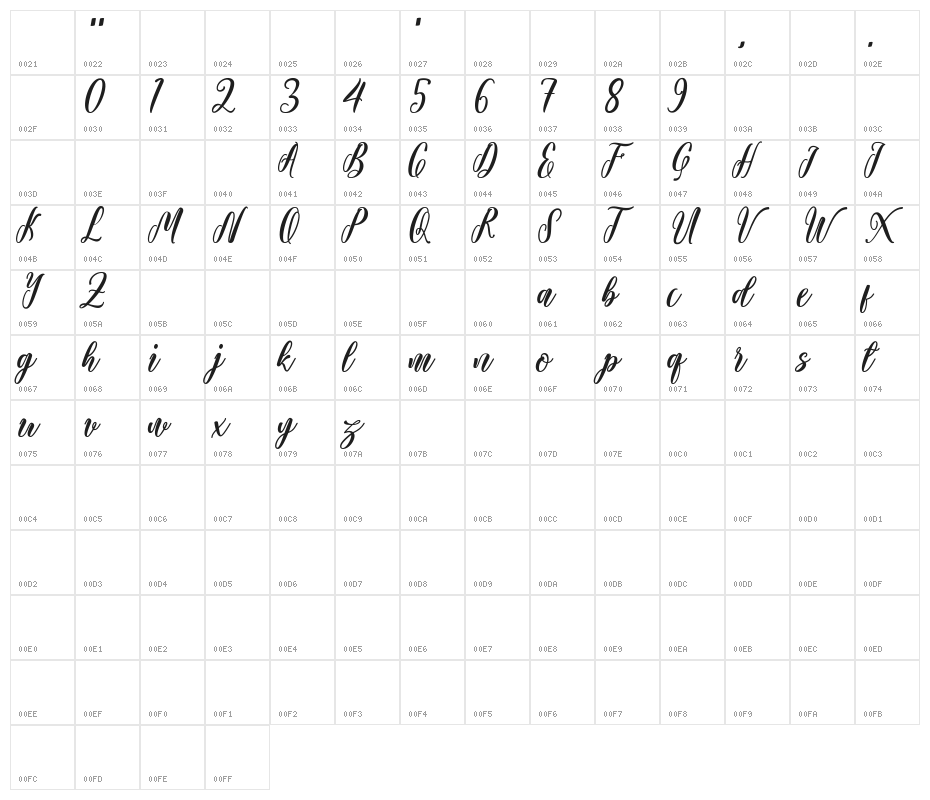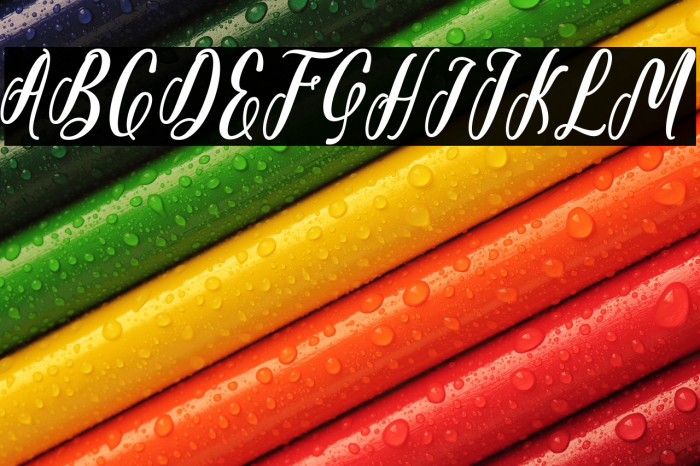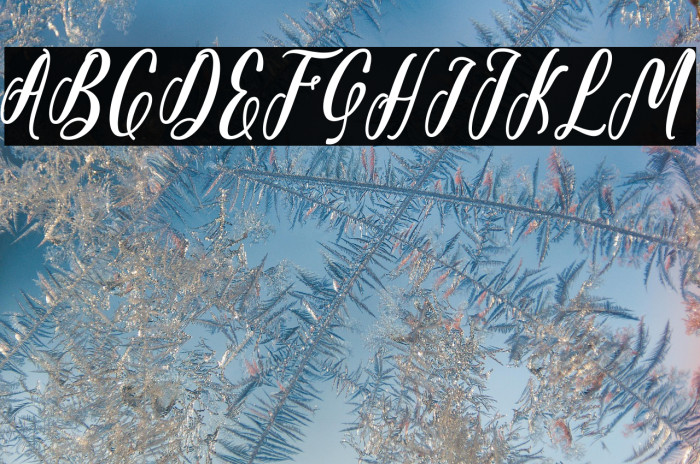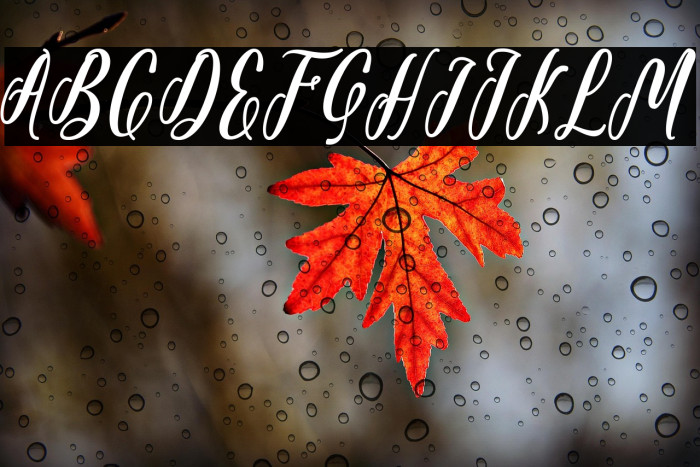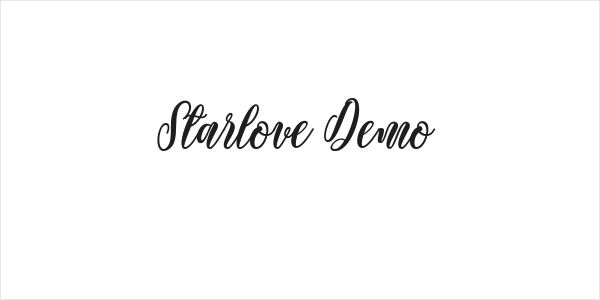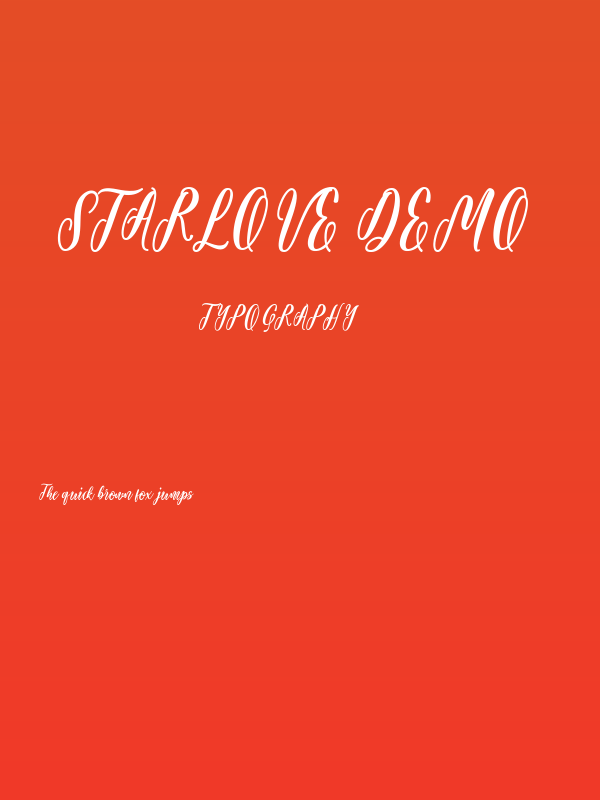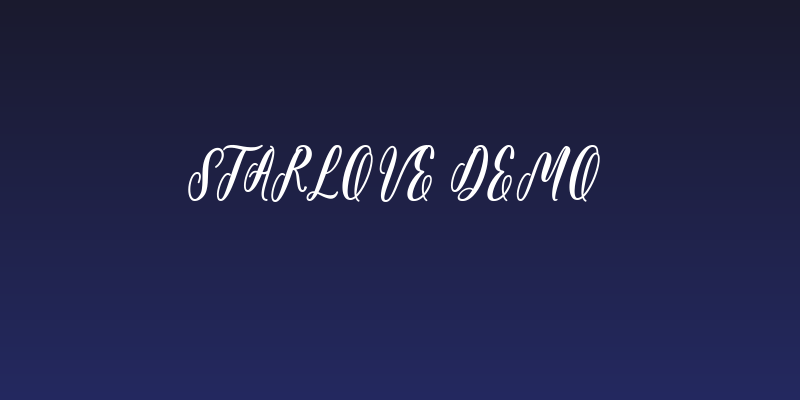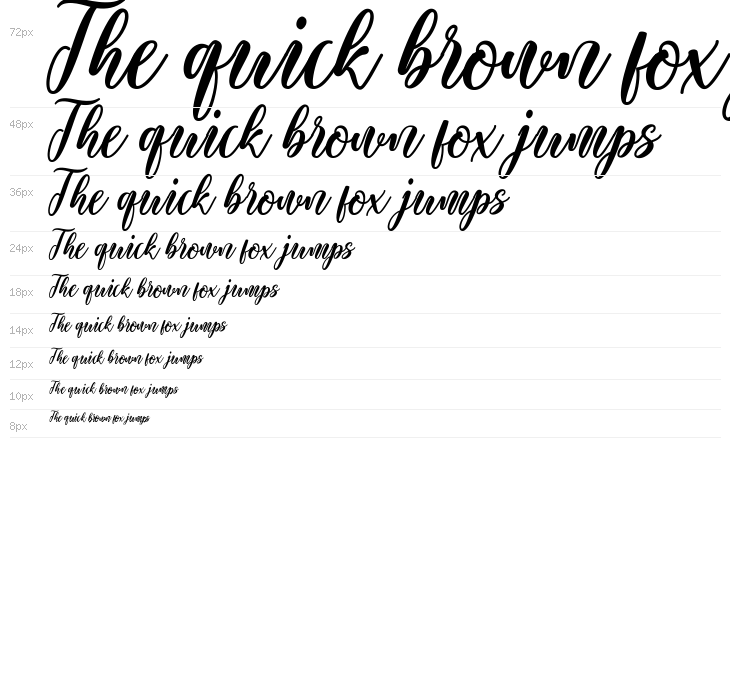
Starlove Demo Font
Starlove Demo Description
This font features an elegant and flowing script style, characterized by its smooth, cursive letterforms that convey a sense of sophistication and grace. The uppercase letters are tall and slightly narrow, with sweeping curves and flourishes that add a decorative touch. The lowercase letters maintain a consistent flow, with connected strokes that enhance the script's fluidity. Numbers and special characters are designed to match the overall aesthetic, ensuring a cohesive look. This font's style is ideal for projects that require a touch of elegance and personal flair.
| Overall Style | Elegant, Decorative |
| Proposed Projects | Ideal for wedding invitations, greeting cards, branding, and elegant logo designs. |